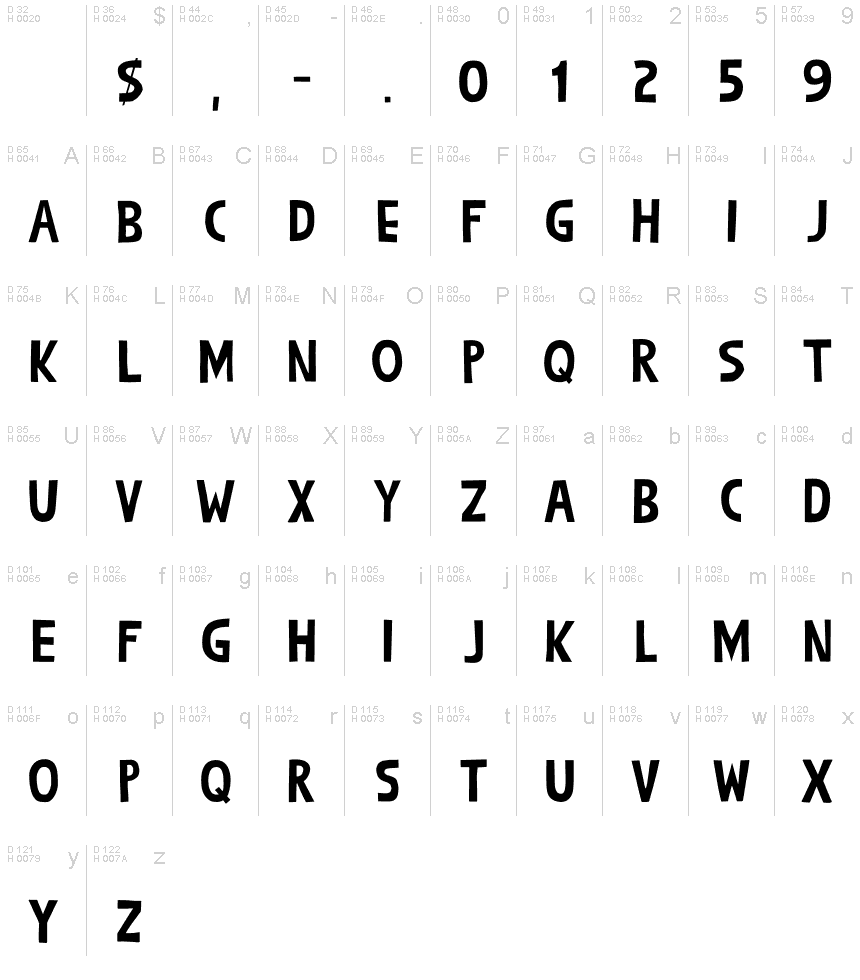
Knip DEMO Regular
Looking for a fun and playful font that will add character to your project? Look no further than Knip, the display font designed by Hanoded. With its cartoon style, Knip is perfect for projects that need a touch of whimsy and charm. The semi-bold font can be used for headlines, titles, or logos, while the regular width is ideal for body text or captions. Whether you're designing a children's book cover, a poster for an event, or creating branding materials for a new business venture, Knip is sure to make your project stand out with its unique and playful look.